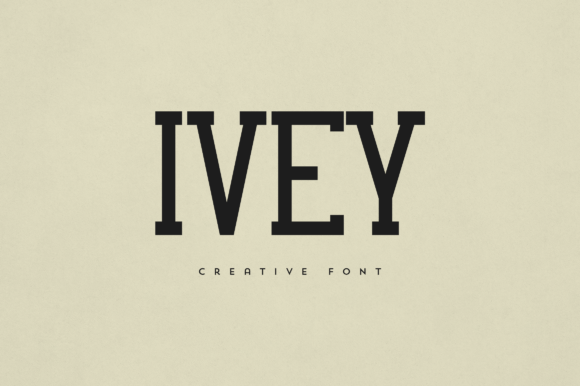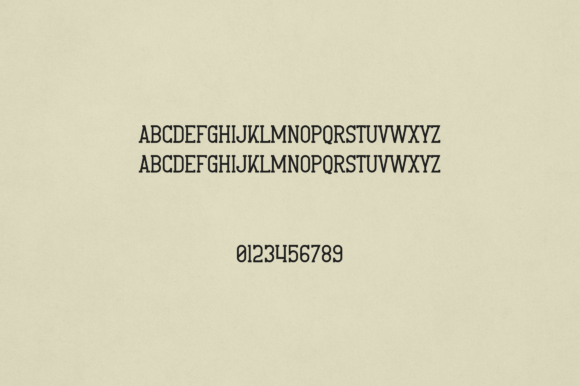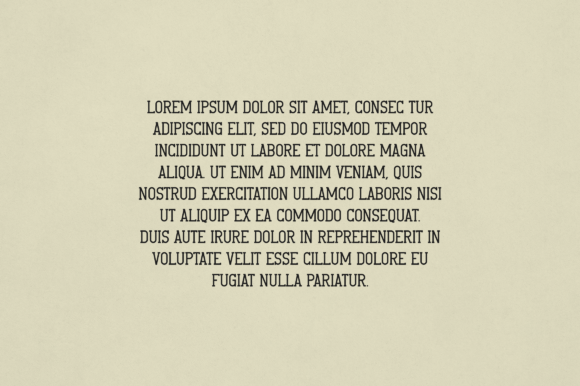
Ivey: An Elegant and Versatile Font
Ivey is an elegant and versatile font designed to create unique typography. This distinctive typeface brings enchanting style to logos, branding, headlines, and plain text while maintaining versatility across various applications.
Key Features of Ivey
- Elegant Design: Offers sophisticated and refined letterforms.
- Versatile Style: Adapts well to various design needs.
- Unique Character: Creates distinctive typographic impact.
- Stylish Appeal: Enhances visual presentation.
Best Uses for Ivey
Thanks to its versatile characteristics, Ivey works especially well for:
- Brand identity
- Home-ware designs
- Product packaging
- Magazine headers
- Text overlays
- Headlines
- Plain text
When using Ivey in your designs, keep these tips in mind:
- Try it for headlines or display text to showcase its elegant style.
- Use it as a text overlay on background images.
- Let its versatility enhance branding projects.
- Take advantage of its unique character for distinctive designs.
To sum up, Ivey is an excellent choice for designers seeking an elegant and versatile font. Its unique characteristics make it perfect for projects that need to stand out. Whether you’re creating brand identities, designing packaging, or developing magazine layouts, Ivey offers the perfect blend of elegance and versatility.
Furthermore, Ivey’s distinctive design allows it to shine in contexts where both style and functionality are key. For instance, from product packaging to magazine headers, this font can elevate your projects with its enchanting style. Also, its elegant yet readable appearance works particularly well in designs that aim to make a sophisticated impact.
In conclusion, Ivey truly captures the essence of elegant typography. Its ability to enhance various applications shows how well it can serve creative needs. Therefore, for those wanting to add a touch of unique sophistication to their work, Ivey can transform any design with its distinctive style. Ultimately, it’s perfect for designers aiming to make an elegant, memorable impact across creative projects.